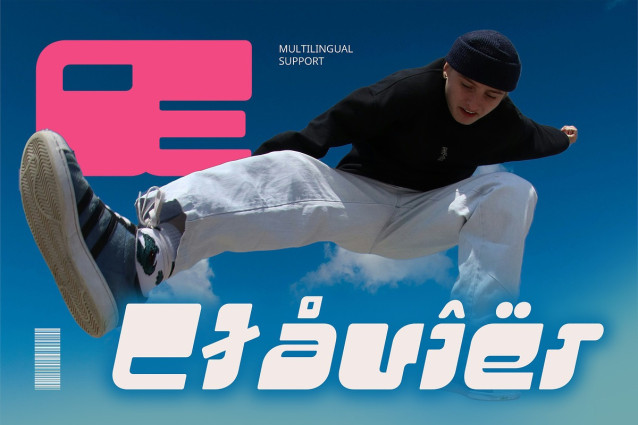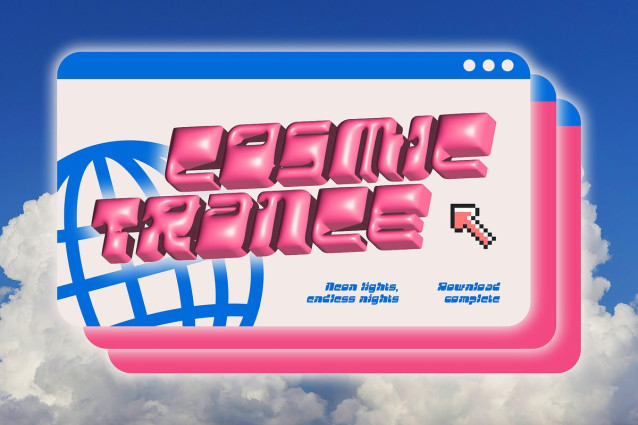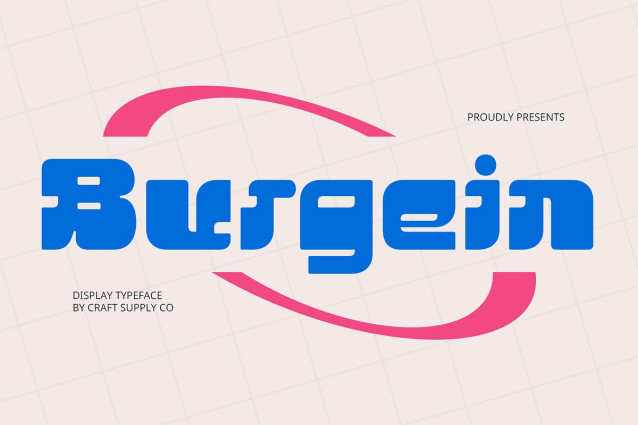
Burgein Font
Burgein Display Font brings back the vibrant essence of the late ’90s and early 2000s through a bold display design inspired by Y2K aesthetics. Its form captures the era’s playful and experimental spirit, full of optimism, digital futurism, and pop culture energy.
Retro Shapes with Bold, Funky Expression Featuring geometric or rounded contours, exaggerated forms, and unconventional details, Burgein radiates a funky and eye-catching presence. This makes it ideal for projects that want to inject personality, boldness, and an unmistakable throwback vibe into their visuals.
Energetic and Cheerful Vibe Burgein embodies a sense of fun and freedom. Its funky vibe and energetic form make it a natural fit for projects that seek to break norms, radiate positivity, and deliver a strong visual impact. From its bouncy curves to its confident stance, every letter feels alive with personality.
Perfect for Playful and Bold Design Projects This font thrives in bold applications—ideal for music posters, fashion lookbooks, edgy packaging, nostalgic branding, or digital designs that embrace eccentricity. Burgein brings Y2K back to life with a modern twist, making it perfect for creatives who want to infuse their work with joy, nostalgia, and bold attitude.